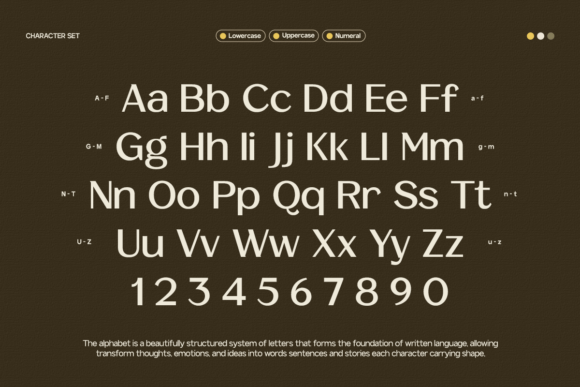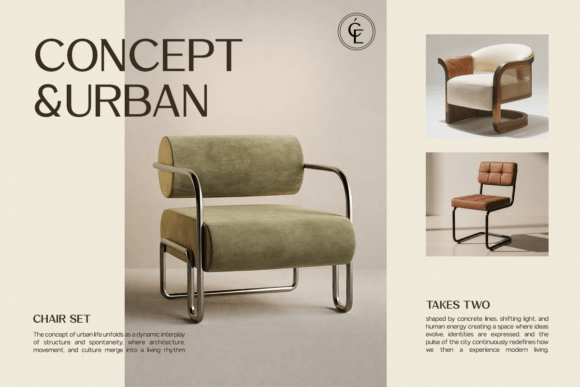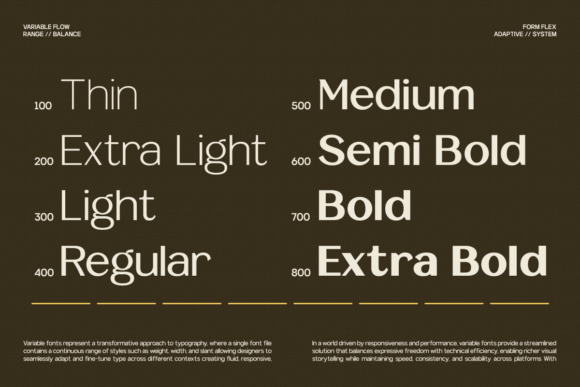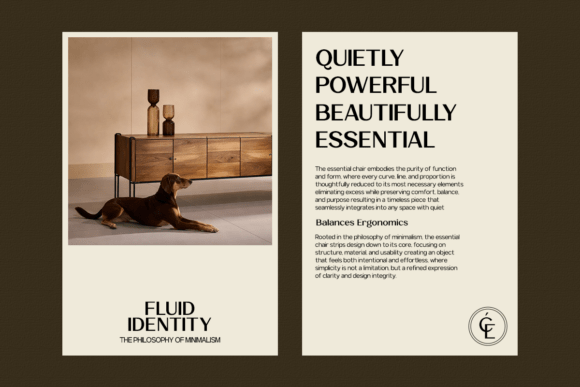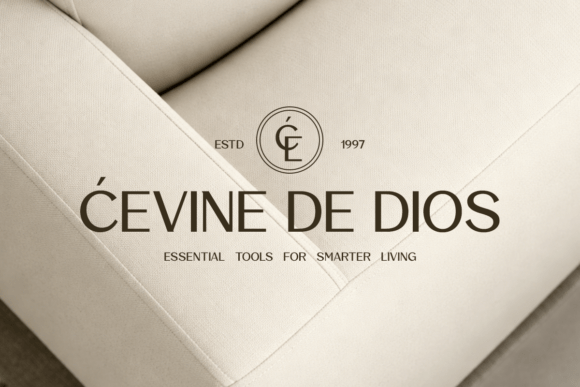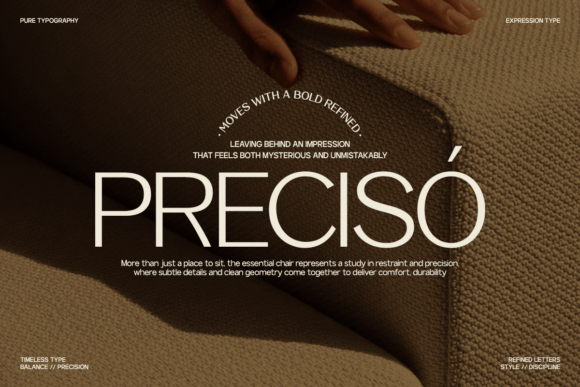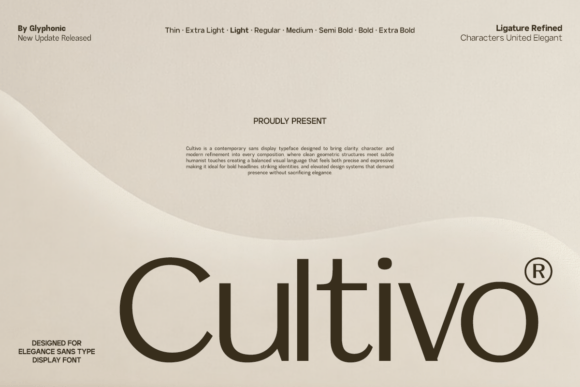
Introducing Cultivo Font: Elevate Your Design Systems with Precision and Elegance
In the world of typography, a well-crafted font can make all the difference in elevating a design system from ordinary to extraordinary. Meet Cultivo, a masterful contemporary sans display typeface designed to bring unyielding clarity and modern refinement to every composition. With its unique blend of clean geometric structures and subtle humanist touches, Cultivo is the perfect choice for designers and crafters looking to create striking brand identities, high-end tech interfaces, editorial headers, and elevated design systems.
The Art of Balance: Clean Geometry Meets Humanist Touches
Cultivo’s design is rooted in the perfect balance between clean geometric structures and subtle humanist touches. This harmonious blend allows the typeface to convey a sense of precision and modernity while maintaining a level of warmth and approachability. The result is a visual language that is both precise and expressive, making Cultivo an exceptional choice for a wide range of design applications.
Elegant Ligatures and Refined Character Spacing
One of the standout features of Cultivo is its elegant ligatures and refined character spacing. These carefully crafted details allow the typeface to convey a sense of sophistication and refinement, making it perfect for high-end designs that demand a signature presence. Whether you’re creating a brand identity, editorial header, or tech interface, Cultivo’s elegant ligatures and refined character spacing will help you achieve a level of professionalism and polish.
Unleash Your Creativity with Cultivo
With Cultivo, the possibilities are endless. This versatile typeface can be used in a wide range of design applications, from striking brand identities to high-end tech interfaces, editorial headers, and elevated design systems. Whether you’re a designer, crafter, or simply someone who appreciates the art of typography, Cultivo is an extraordinary choice for anyone looking to elevate their design systems with precision and elegance.
Key Features of Cultivo Font
• Contemporary sans display typeface: Cultivo is a modern sans serif typeface designed specifically for display use.
• Clean geometric structures: Cultivo’s design is rooted in clean geometric structures, providing a sense of precision and modernity.
• Subtle humanist touches: The typeface also features subtle humanist touches, adding a level of warmth and approachability.
• Elegant ligatures: Cultivo’s elegant ligatures add a level of sophistication and refinement to any design.
• Refined character spacing: The typeface’s refined character spacing ensures a level of professionalism and polish.
Why Choose Cultivo Font?
So why choose Cultivo font for your next design project? Here are just a few reasons:
• Unique and distinctive: Cultivo’s unique blend of clean geometric structures and subtle humanist touches makes it a standout choice for designers.
• Versatile: The typeface can be used in a wide range of design applications, from brand identities to tech interfaces and editorial headers.
• Professional and polished: Cultivo’s elegant ligatures and refined character spacing ensure a level of professionalism and polish.
• Easy to read: The typeface’s clean design and balanced visual language make it easy to read, even at small sizes.
In conclusion, Cultivo font is an exceptional choice for designers and crafters looking to elevate their design systems with precision and elegance. With its unique blend of clean geometric structures and subtle humanist touches, elegant ligatures, and refined character spacing, Cultivo is the perfect choice for striking brand identities, high-end tech interfaces, editorial headers, and elevated design systems. Whether you’re a seasoned designer or simply someone who appreciates the art of typography, Cultivo is sure to impress.